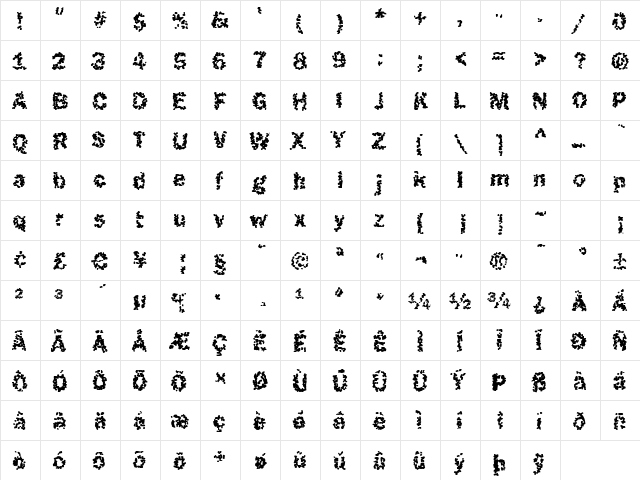
Funky25 Bold Font Preview
Funky25 Bold
Design Context for Funky25 Typeface
Funky25 has an approachable, lighthearted character — its loose, expressive forms are well-suited to children's content, casual branding, and fun-first design.
Font Pairing: Pairs well with a rounded or humanist sans for body copy, maintaining the friendly tone without relying on Funky25 to carry extended reading.
Pro Tip: Use Funky25 at larger display sizes where its expressive character can land. Pair with a clean, simple sans for body copy to maintain readability.